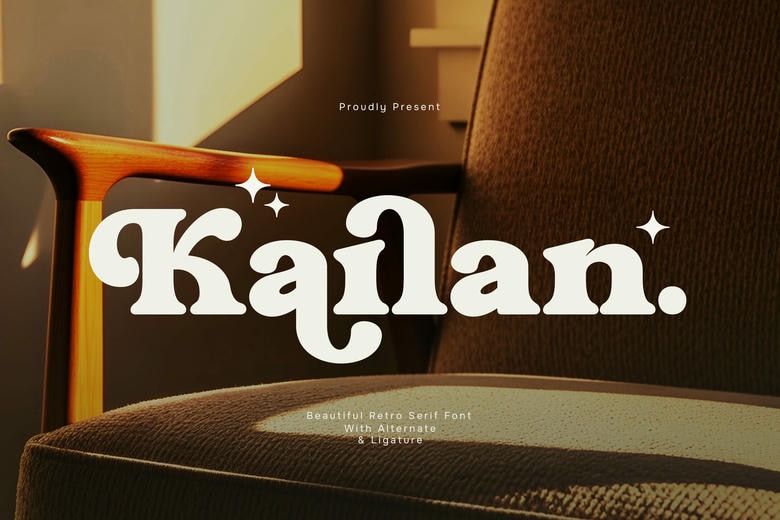
Kailan Font
Kailan is a gorgeous vintage serif typeface that is both vintage and elegant. Kailan is inspired by traditional typography, with its graceful serifs, flowing lines, and unique letterforms, which make it look warm and nostalgic.
This typeface is created to attract attention and provide a stylish and expressive appearance without losing clarity and balance. Its vintage nature adds character and uniqueness to each design, making it more vibrant, artistic, and memorable.
Kailan Serif Font